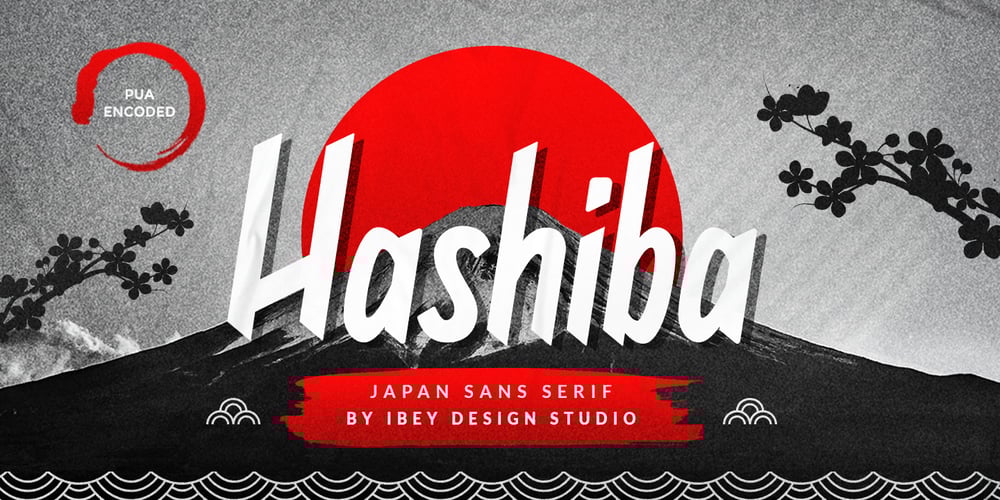
Hashiba Japanese Font
Hashiba Japanese Font Font Family was designed by Ikrar Bey Khubaib and published by IbeyDesign. Hashiba Japanese Font contains 1 styles and family package options. Hashiba Japanese Font is a cool, Japanese-inspired display font. It will look stunning on any food menu, poster flyer, or print.Use this font for your designs and explore its endless possibilities.Hashiba Japanese Font can pair with calligraphy Japanese font, Japanese font brush, Japanese calligraphy font, or Japanese brush font.Hope you enjoy, and happy designing :-)Thank You